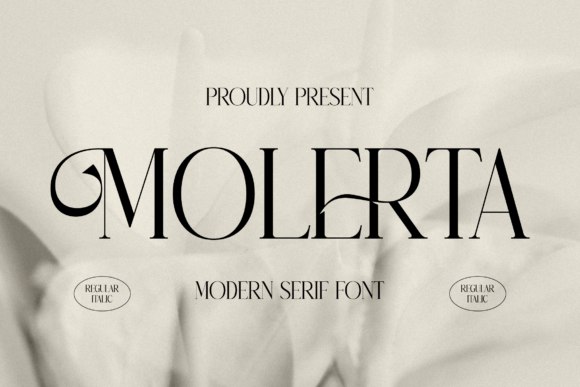
Behold Molerta, a timeless serif font family that exudes sophistication and elegance. Crafted by Storytype Studio, Molerta embodies a unique blend of modern and classic styles, captivating the hearts of designers and creatives alike. Its distinct strokes and graceful curves lend a luxurious touch to any project, leaving a lasting impression. Immerse yourself in a world of typographic artistry as you explore the diverse font styles of Molerta.
Unleash your creativity and embark on a visual journey, transforming your designs into masterpieces. Molerta's versatility knows no bounds, catering to a multitude of projects. Enchant your audience with breathtaking logos that command attention, captivating book or movie titles that ignite curiosity, and fashion brands that radiate exclusivity. With Molerta, your designs will transcend the ordinary and elevate your brand to new heights.
Step into the realm of elegance and luxury, where Molerta's refined characters dance across the page. Its delicate serifs add a touch of refinement, evoking a sense of timelessness and sophistication. Whether you're designing a magazine spread, crafting beautiful clothes, or creating inspiring quotes, Molerta will elevate your work to new heights. Its versatility extends to lettering, adding a personal touch to your handwritten notes and artworks.